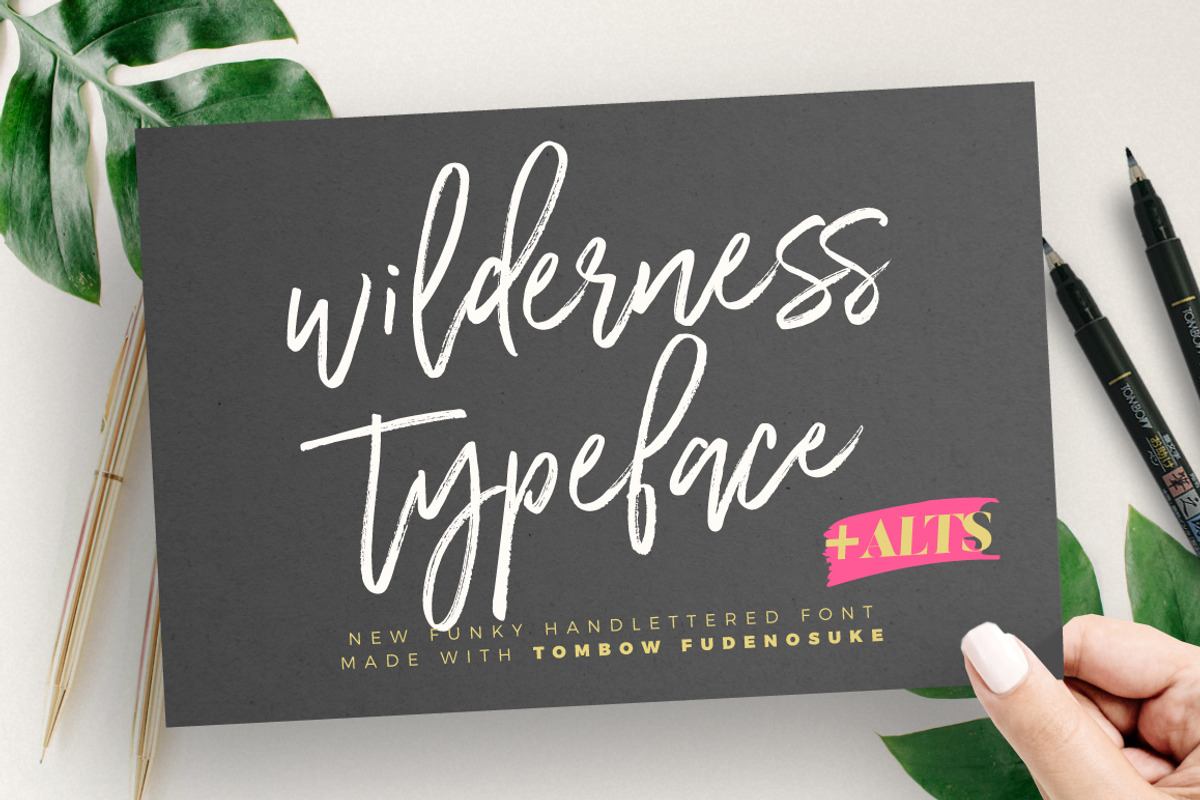
Wilderness Typeface Free Download
Wilderness Typeface is perfect for outdoor adventure branding, camping equipment packaging, national park signage, hiking trail maps, nature documentary titles, wilderness survival guides, outdoor clothing brands, adventure tourism promotions, environmental conservation campaigns, rustic lodge branding, and expedition photography watermarks.
Wilderness Typeface is exciting because it embodies the untamed spirit and raw beauty of nature's most remote landscapes, creating powerful visual connections that inspire adventure and exploration. This rugged typeface features organic letterforms with natural textures that evoke feelings of freedom, discovery, and outdoor authenticity. The font's distinctive character captures the essence of wilderness experiences while maintaining exceptional readability across all applications.
Wilderness Typeface includes comprehensive font families: Regular Wilderness Style, Bold Adventure Weight, Light Nature Touch, Condensed Trail Format, Extended Landscape Width, Rough Textured Version, Clean Modern Alternative, Distressed Weather Effects, Shadow Mountain Elements, and Special Outdoor Symbols, providing extensive creative possibilities for nature-inspired designs.
This powerful typography solution transforms ordinary text into compelling outdoor narratives through its authentic wilderness-inspired design language and adventurous spirit. Wilderness Typeface Free Download enables designers to access premium outdoor typography that instantly communicates adventure, exploration, and connection with nature. The font's carefully crafted proportions ensure excellent performance in both rugged outdoor contexts and sophisticated brand applications.
Outdoor industry professionals and adventure brands trust Wilderness Typeface for its ability to communicate authenticity and inspire audiences to embrace outdoor experiences. The typeface's robust construction performs exceptionally well across various media formats, from large-scale outdoor signage to detailed trail maps and digital applications. Its extensive character support includes weather-resistant design elements and symbols specifically created for outdoor and adventure contexts.
The creative philosophy behind Wilderness Typeface draws inspiration from natural formations, weathered trail markers, and the organic beauty found in untouched wilderness areas. This nature-based approach creates a font that feels genuinely connected to outdoor environments while functioning seamlessly in commercial design applications. The typeface's natural rhythm and adventurous stance make it ideal for brands seeking to establish strong connections with outdoor enthusiasts.
Whether creating adventure travel materials, outdoor gear branding, or environmental awareness campaigns, this typeface delivers exceptional results that resonate with nature-loving audiences. Download Wilderness Typeface today and discover how authentic wilderness-inspired typography can bring the spirit of adventure and natural beauty to your creative projects with rugged sophistication.